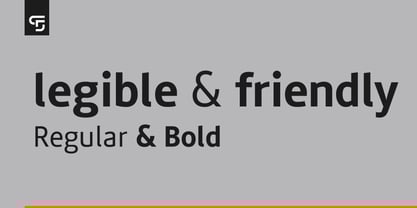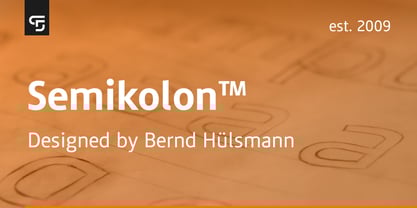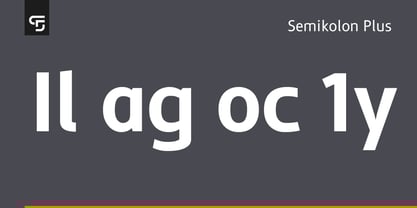
Semikolon Plus
The Semikolon Plus Font Family was designed by Bernd Hülsmann and published by Semikolon Fonts. Semikolon Plus contains 2 styles and family package options.
Semikolon Plus aim to minimise the risk of confusion between similar characters and thus help to motivate reading and promote learning.
Thanks to their legible characters, Semikolon Plus are used in numerous books, including those published by Loewe-Verlag, in adult education centres, other educational institutions and in learning apps for all age groups.
As an orthographic character, the semicolon (Greek: half colon) separates parts of a sentence from each other with a certain weight.In relation to my fonts, the name ‘Semikolon’ stands for the distinct, separate letter forms.Semikolon Fonts aim to minimise the risk of confusion between similar characters and thus help to motivate reading and promote learning.Thanks to their legible characters, Semikolon Fonts are used in numerous books, including those published by Loewe-Verlag, in adult education centres, other educational institutions and in learning apps for all age groups.The Federal Association for Literacy and Basic Education e. V. has been using ‘SemikolonPlus’, one font from the Semikolon Family, across all media for reading booklets, information and teaching materials in adult education since 2009. Learners on literacy courses benefit from the optimal legibility thanks to clear letter shapes.